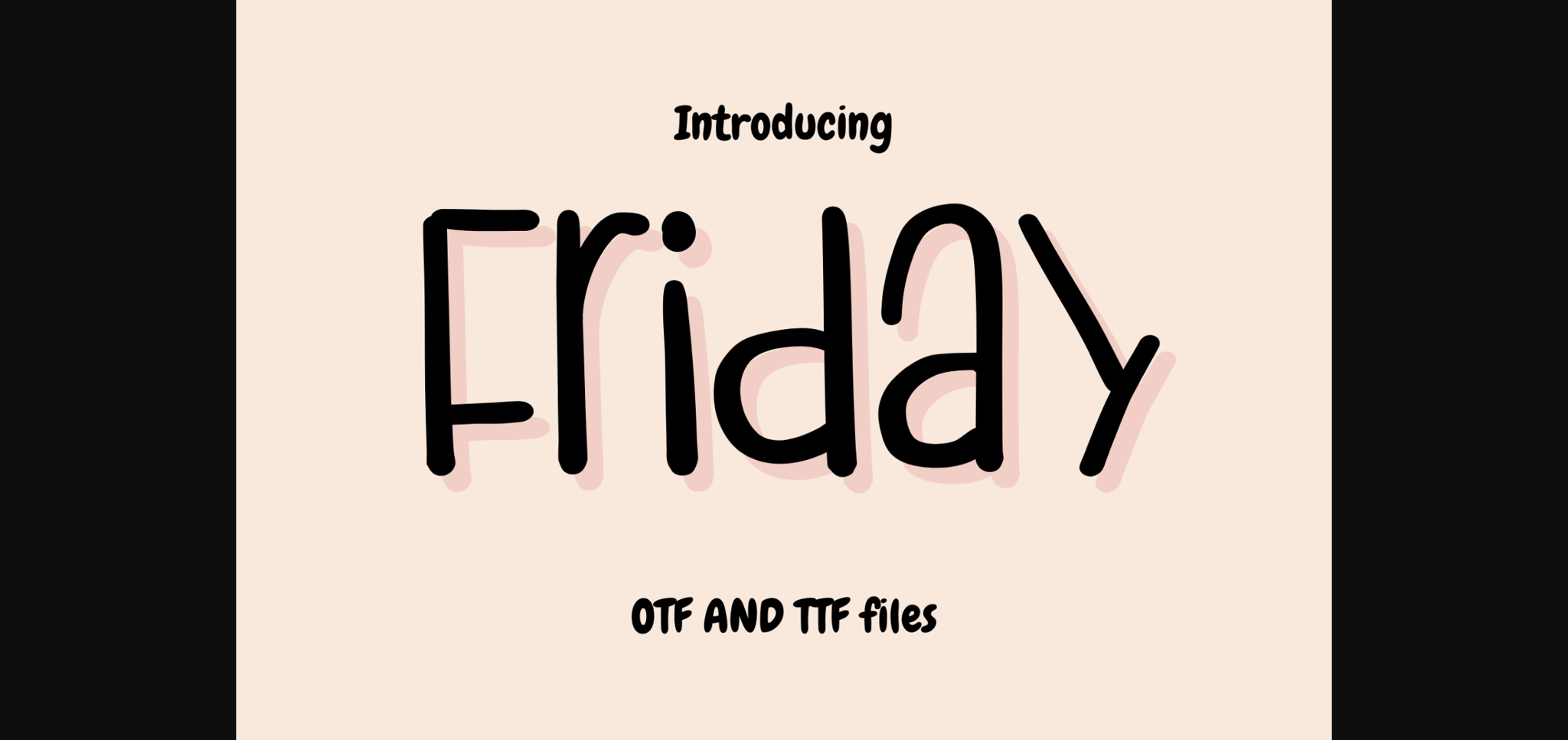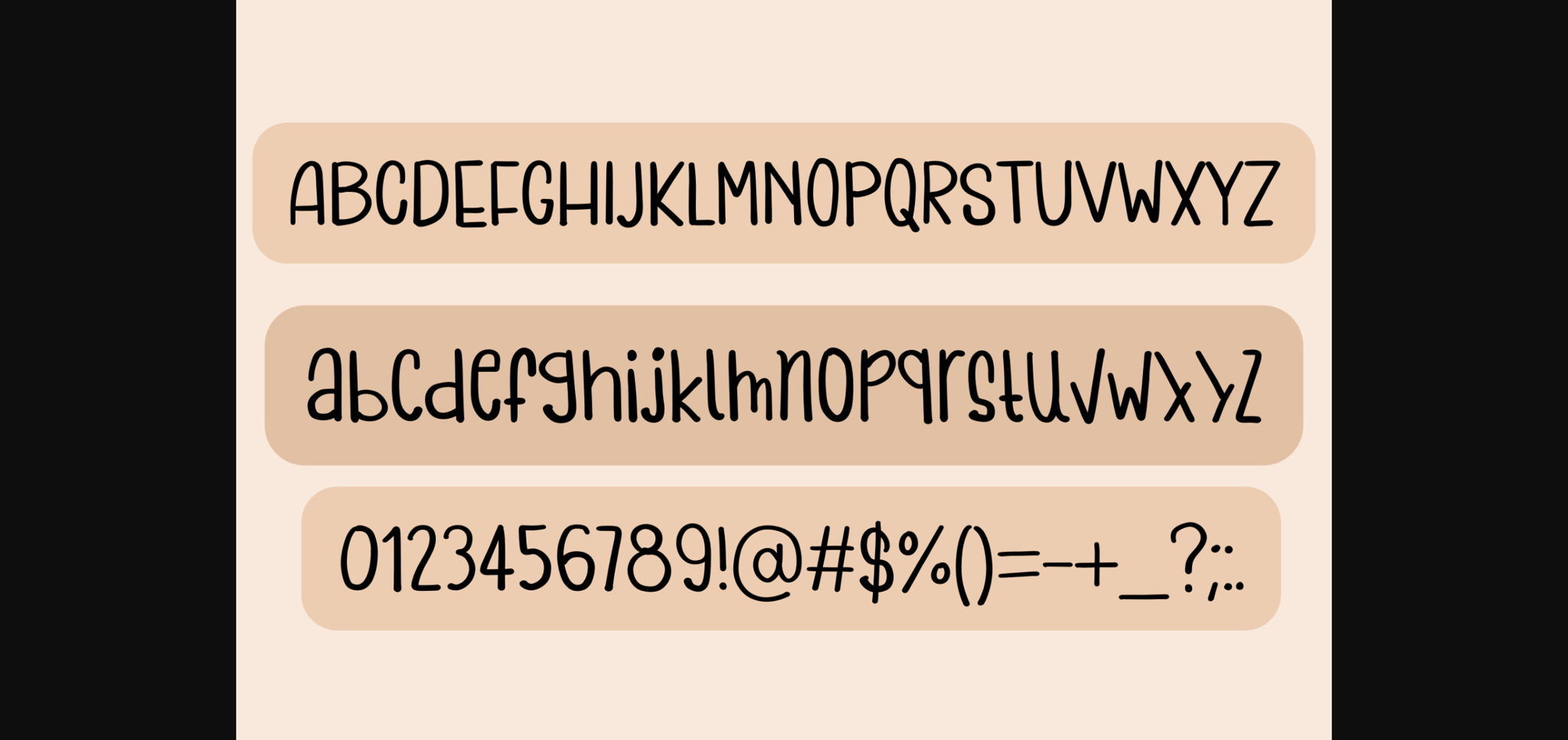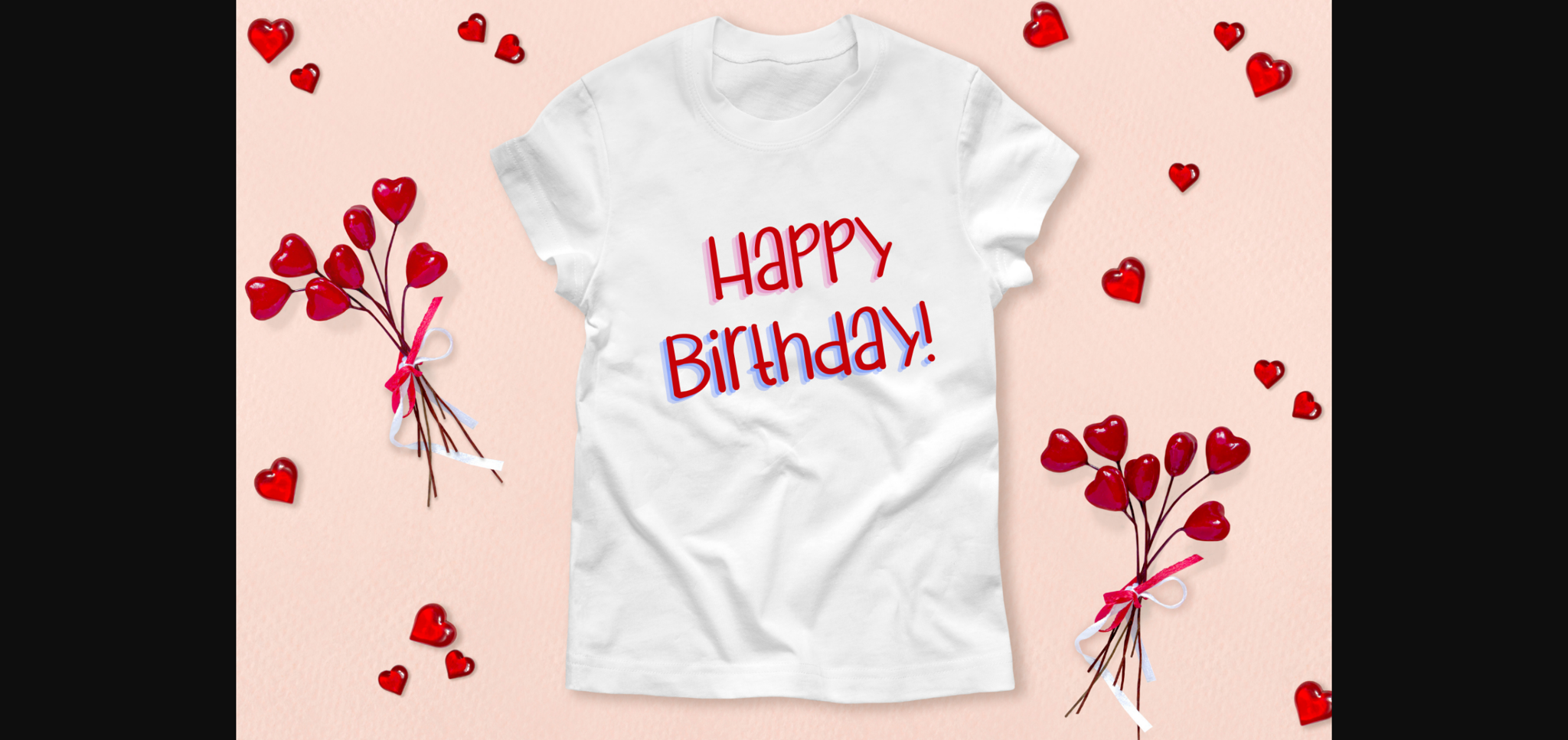
About Friday Font
Introducing “Friday,” a modern handwritten font with a contemporary flair. Its stylish letters bring a unique touch to your text, adding a casual and artistic vibe. Perfect for a variety of creative projects, Friday effortlessly blends a modern aesthetic with the charm of handwritten authenticity. Whether used for invitations, social media graphics, or branding, this font promises a fresh and distinctive look that captures the spirit of the day.